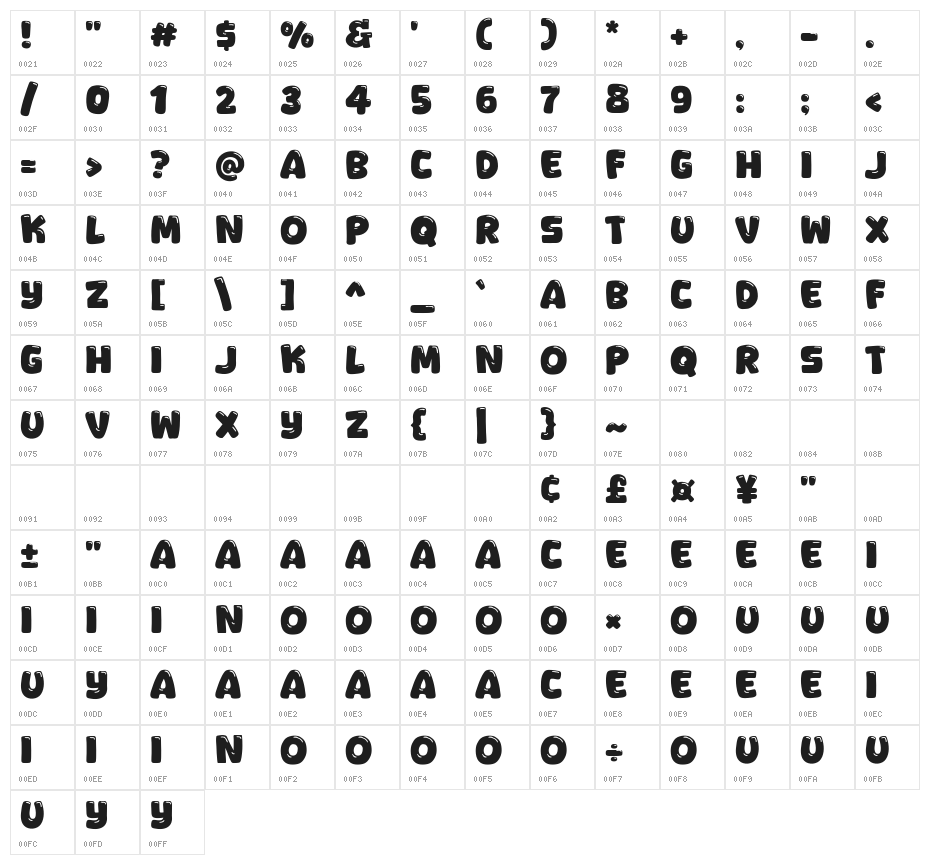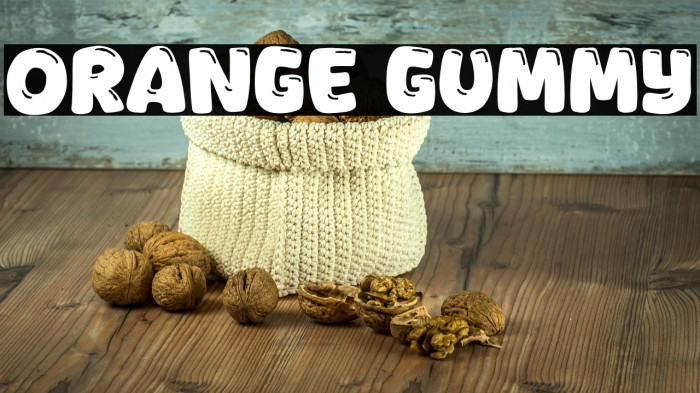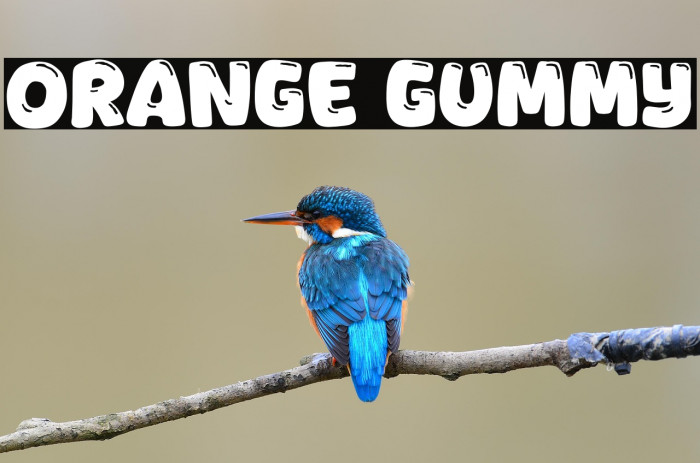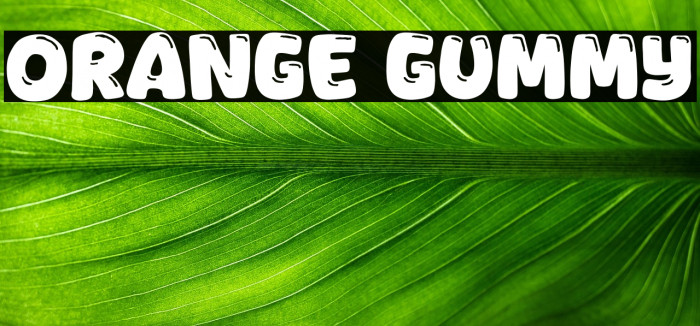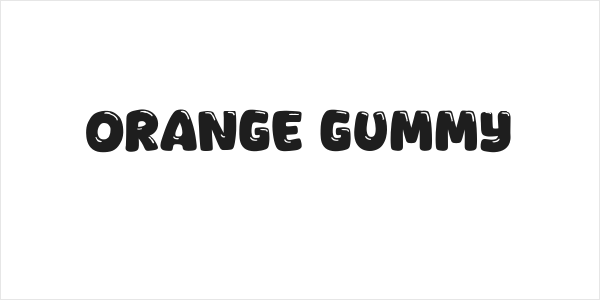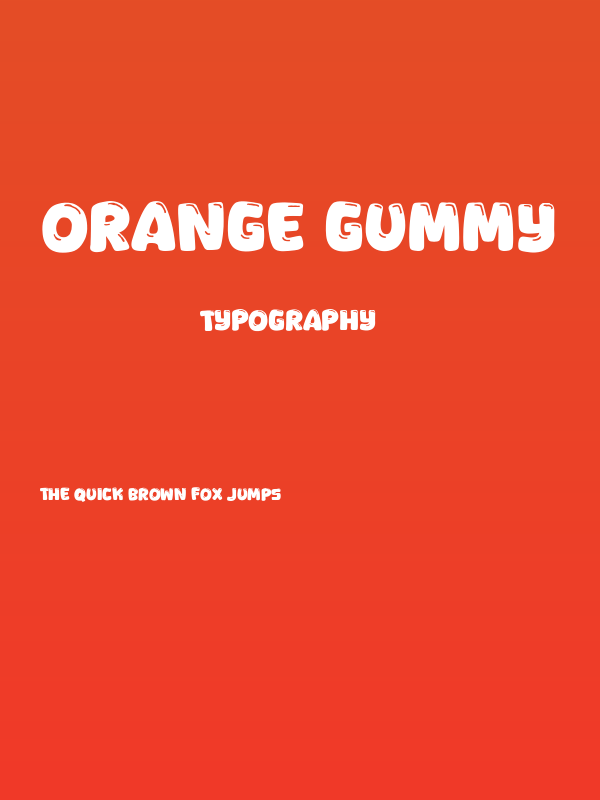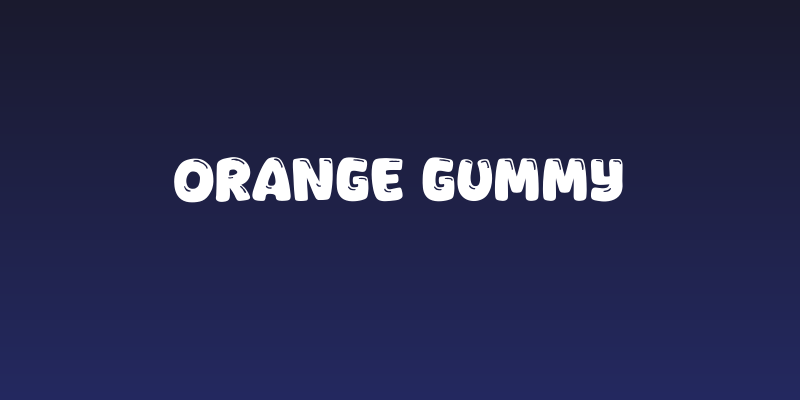
Orange Gummy Font
Orange Gummy Description
This playful and bold font features rounded, bubble-like characters that exude a sense of fun and whimsy. The letters are thick and substantial, with a smooth, glossy appearance reminiscent of gummy candies. The overall design is highly legible, with each character maintaining a consistent width and height, contributing to a uniform and cohesive look. The font's style is both modern and approachable, making it suitable for a variety of creative applications. Its unique, eye-catching design is perfect for projects that require a touch of personality and flair.
| Overall Style | Playful, Modern |
| Proposed Projects | Ideal for children's books, playful branding, party invitations, and any project needing a fun, whimsical touch. |